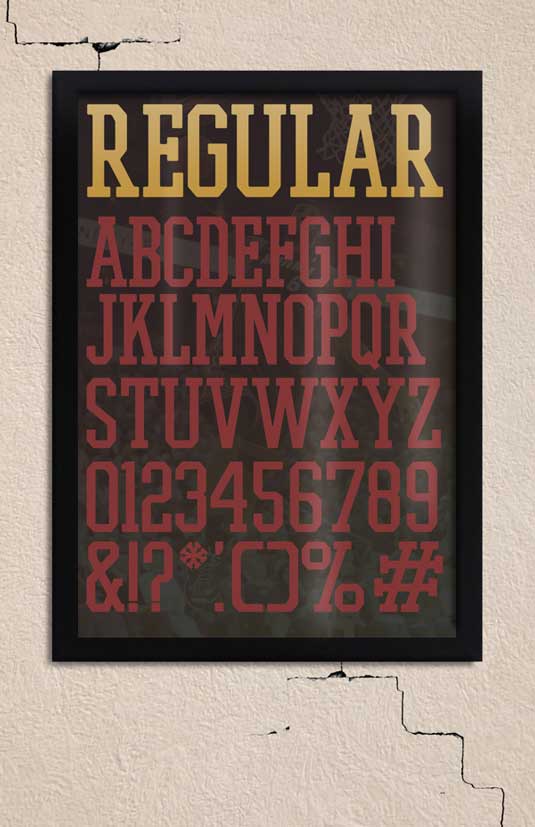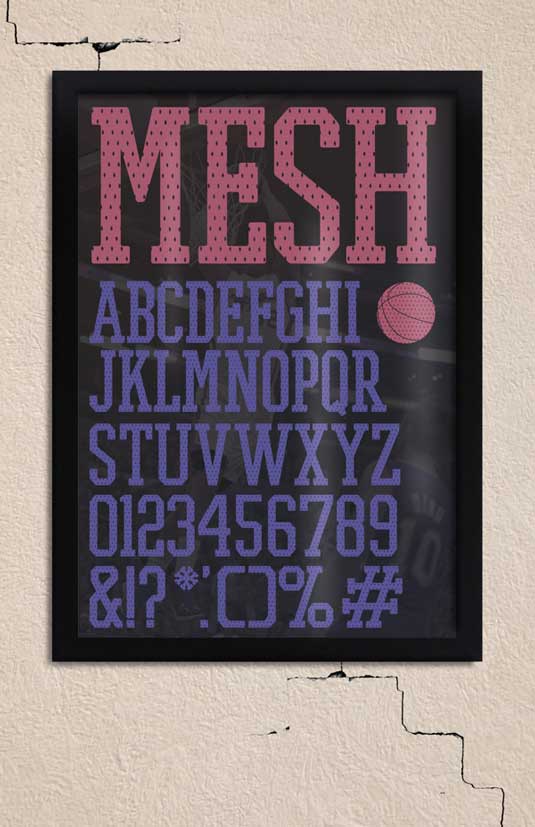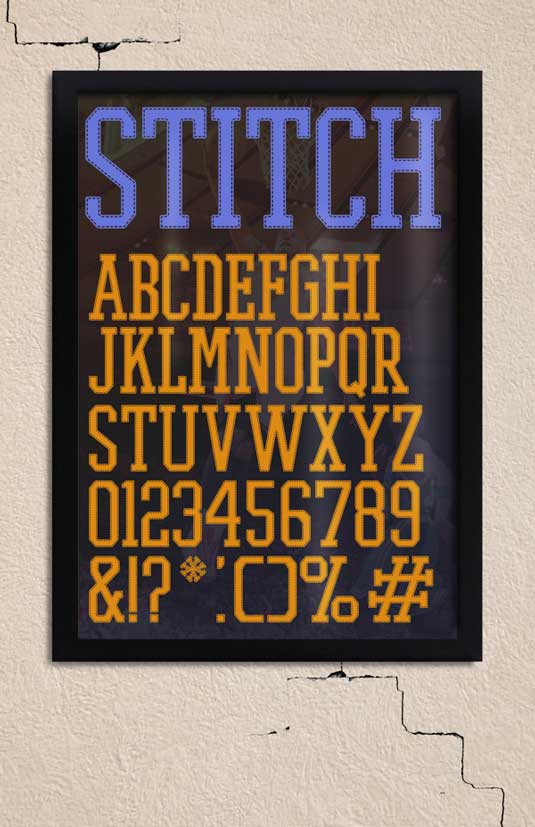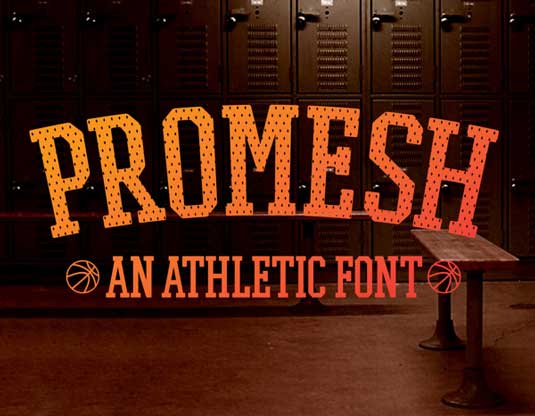
Font of the day: Promesh
Promesh by Paul Reis
Today's font of choice is Promesh by graphic designer Paul Reis. "Promesh puts a spin on your typical and boring athletic font," Reis comments on Behance. "A distressed mesh look reminiscent of those old school basketball jerseys."